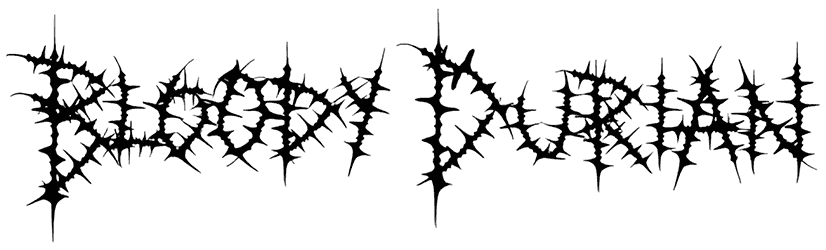
Bloody Durian Font
Bring the horror to your artwork easily with a horror font like this one. Bloody Durian is one barbed wire font that creates a scary vibe with deformed and spiky letters that can be used for posters, flyers, movie titles, and book covers.